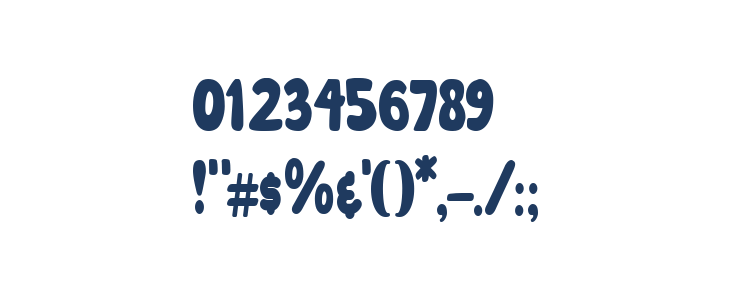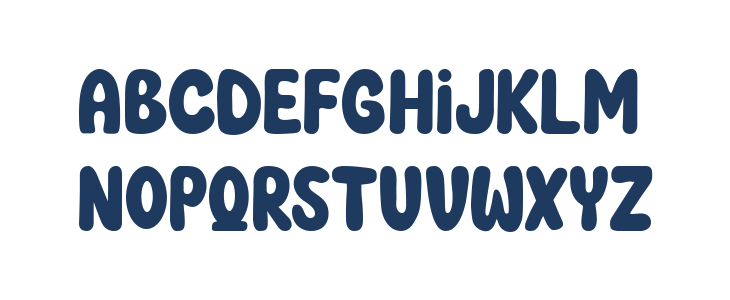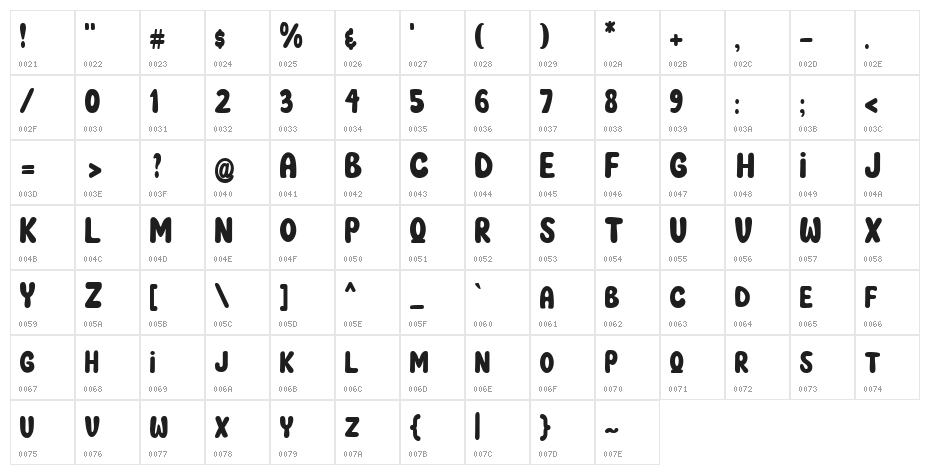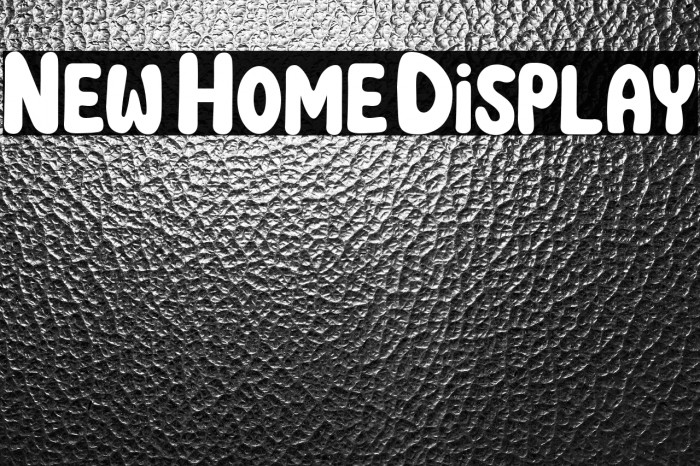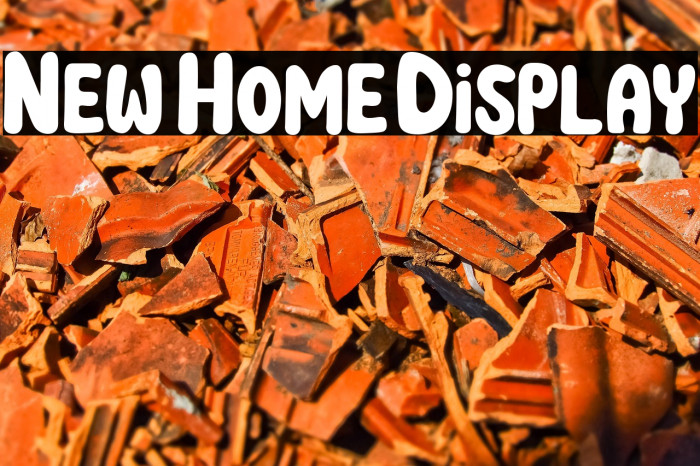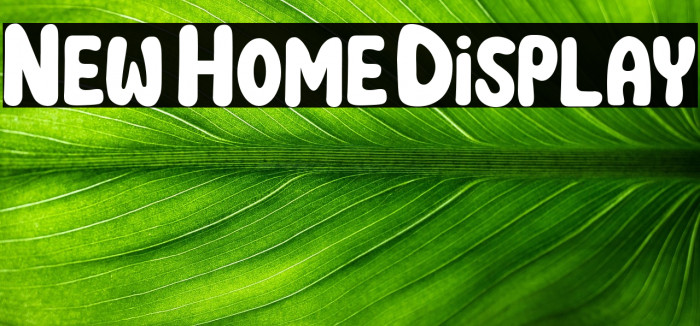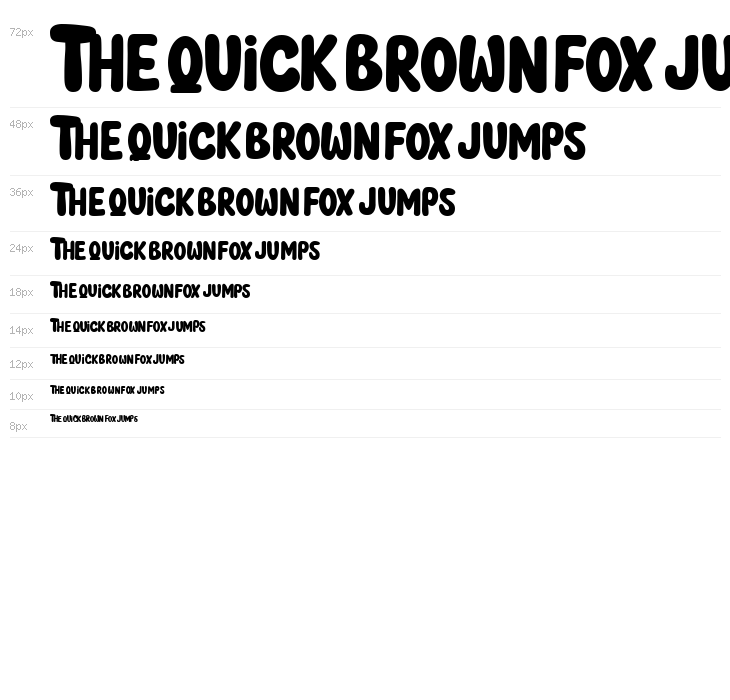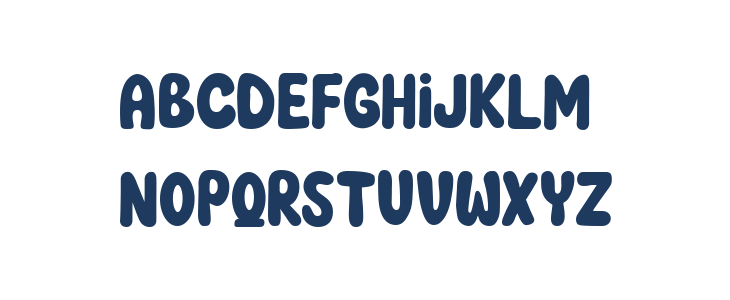
New Home Display Font
New Home Display Description
A playful, rounded sans-serif font with bold, thick strokes and soft, bubbly letterforms. The characters have a uniform width and height, with minimal contrast and a friendly, approachable appearance.
| Overall Style | Playful, Decorative, Modern |
| Use Case | Headlines, Posters, Logos, Packaging |
| Proposed Projects | ChildrenΓ’β¬β’s books, posters, toy packaging, party invitations, branding for playful or casual products. |